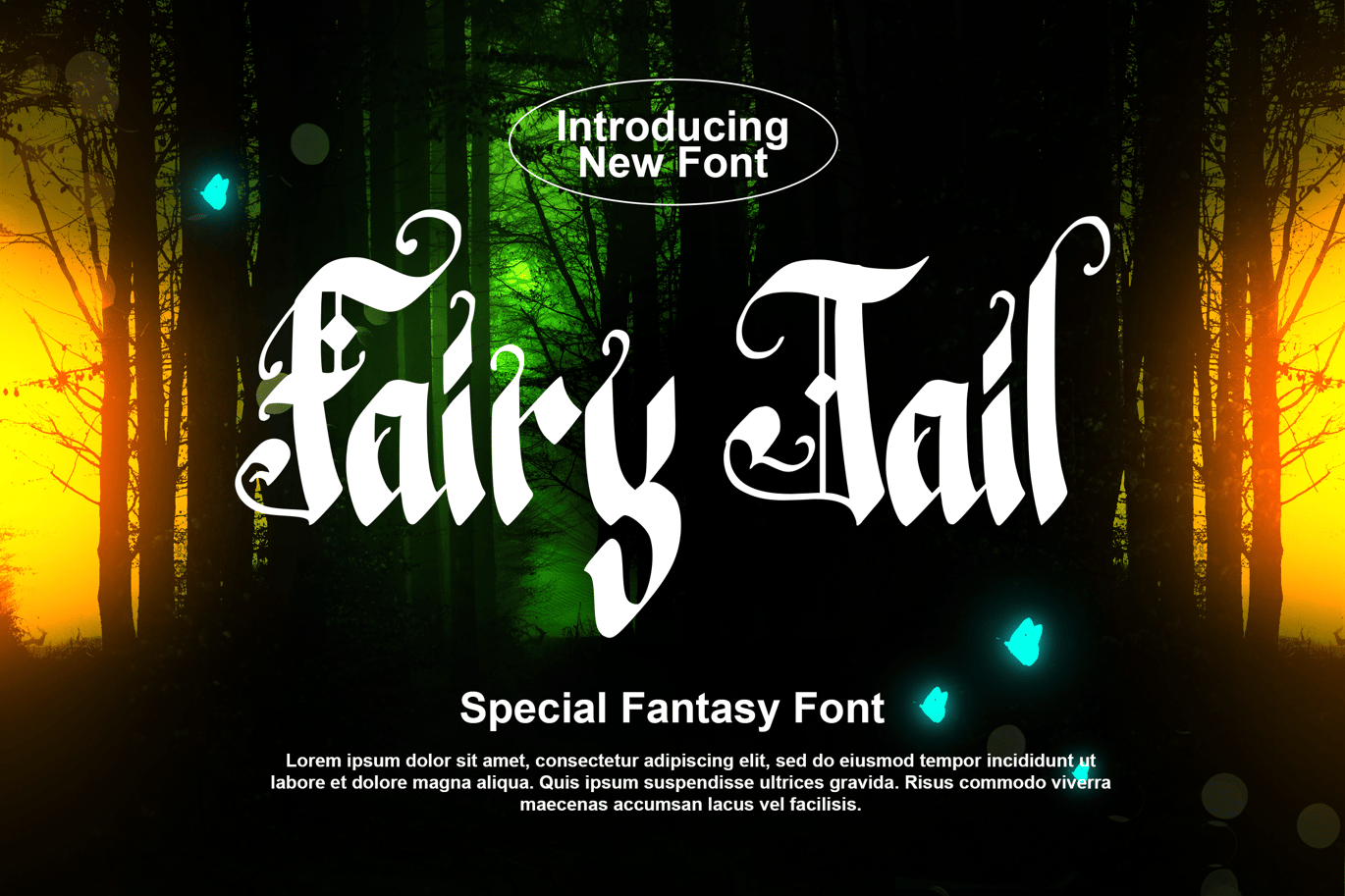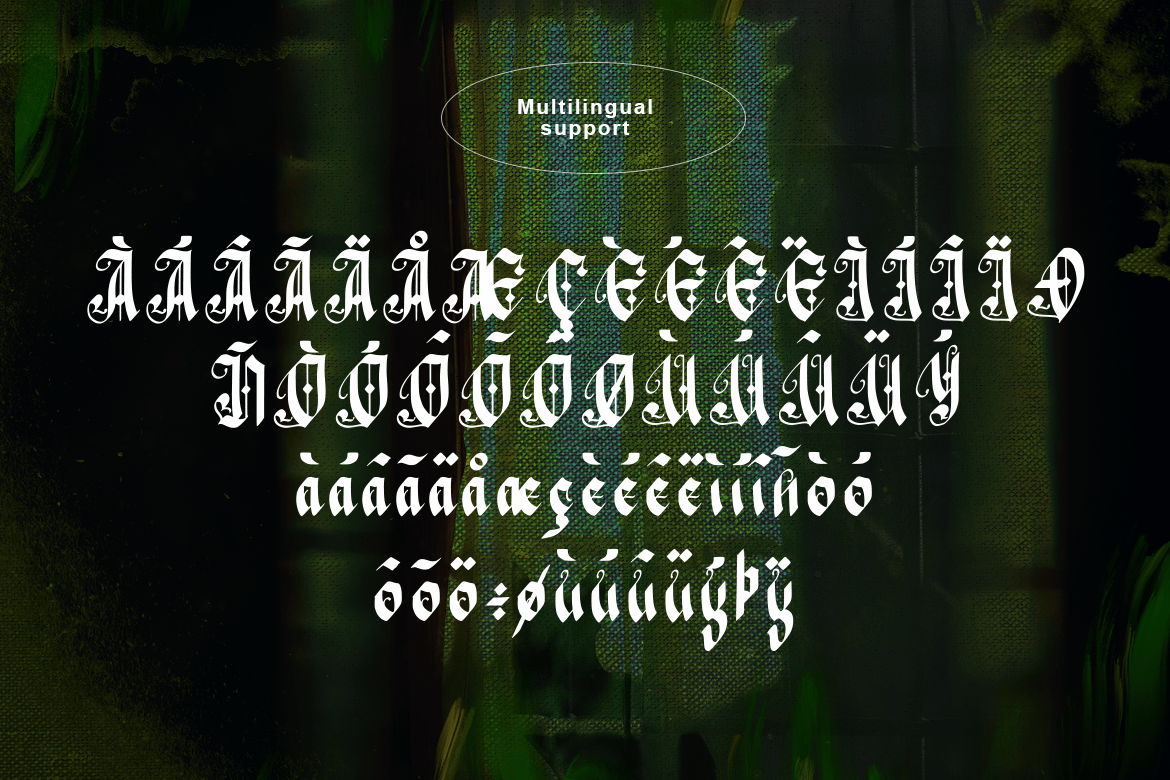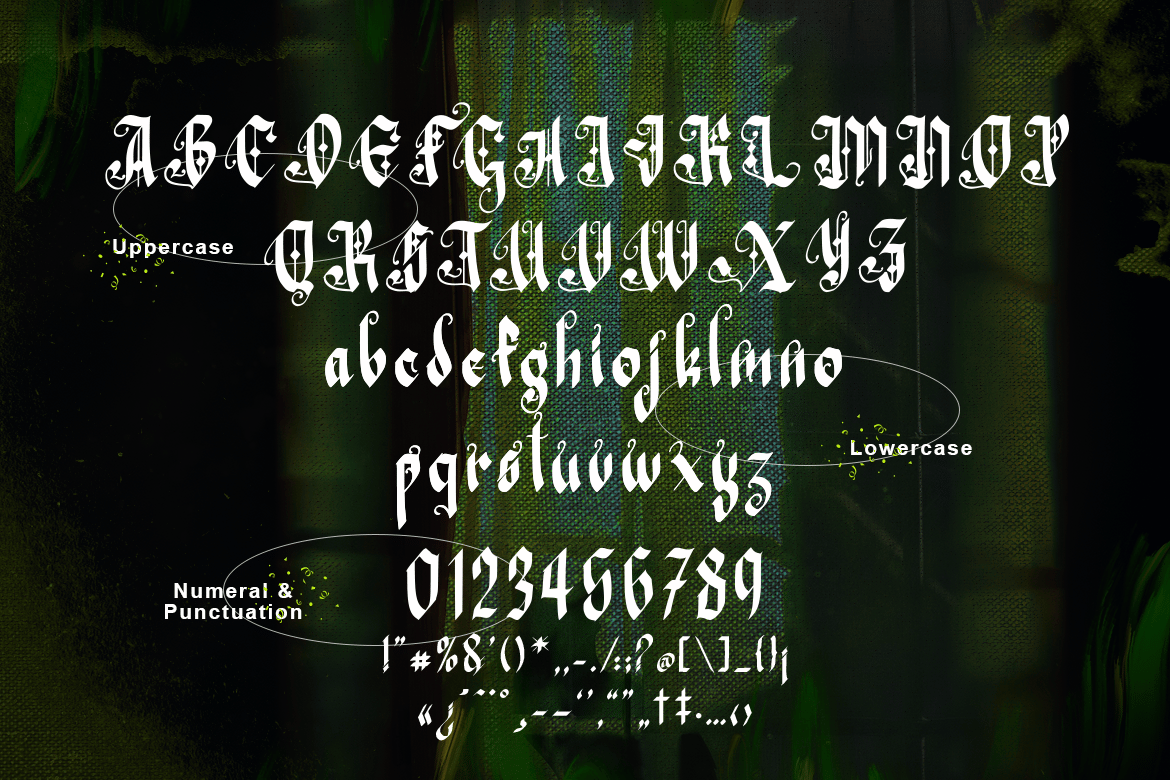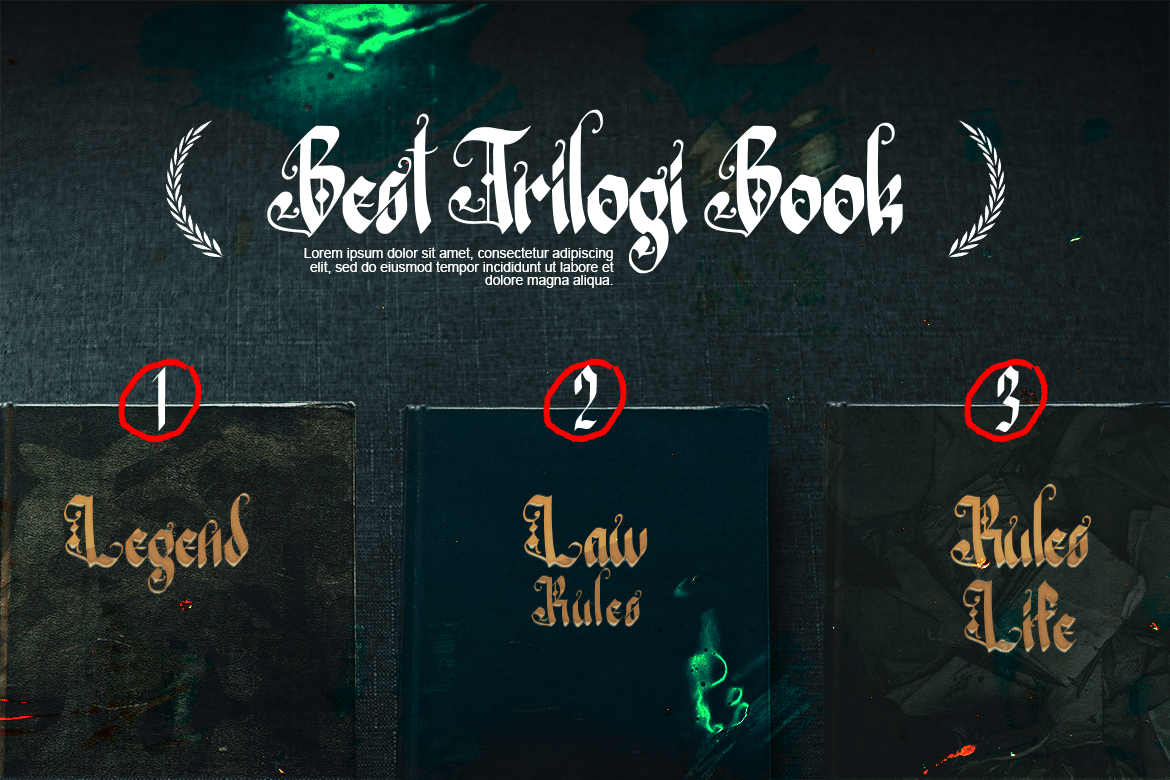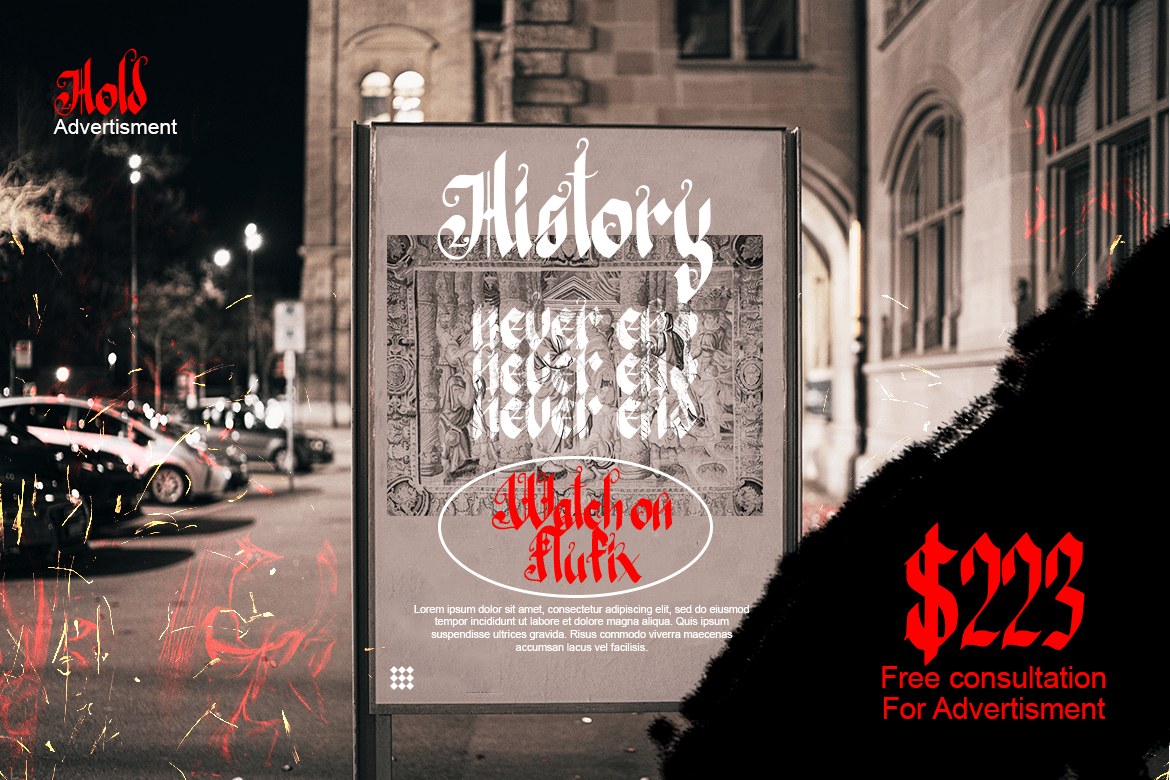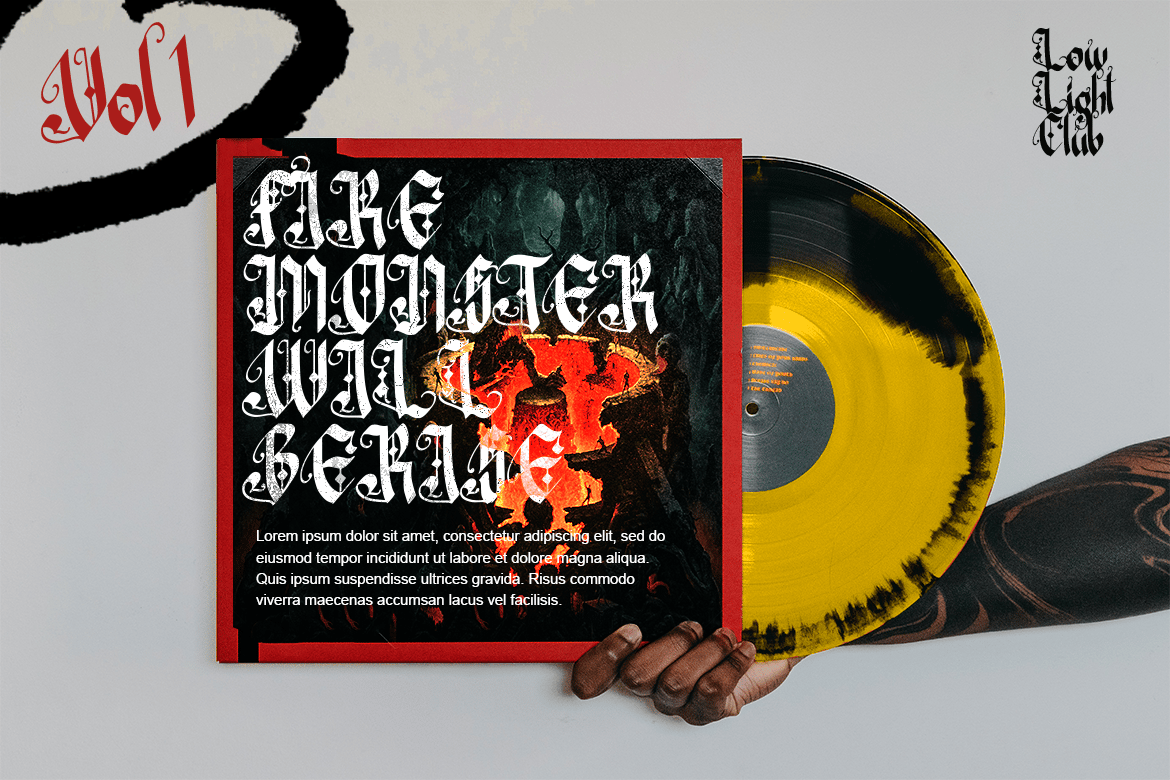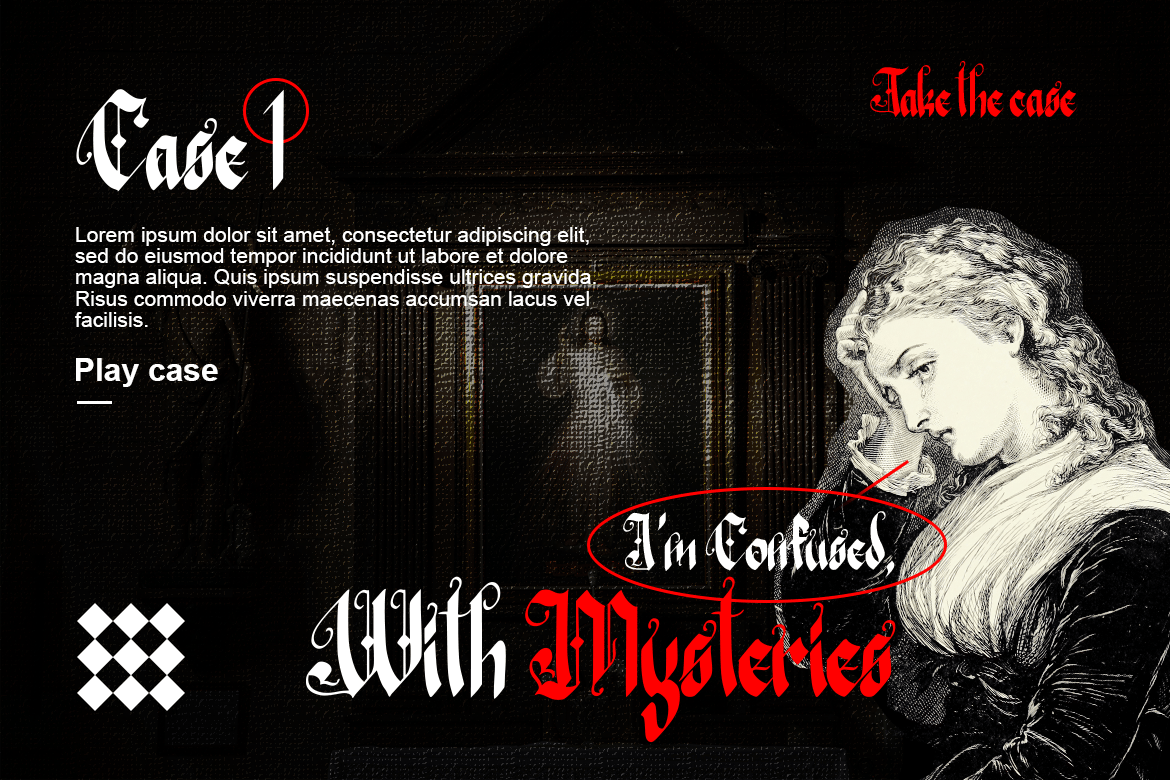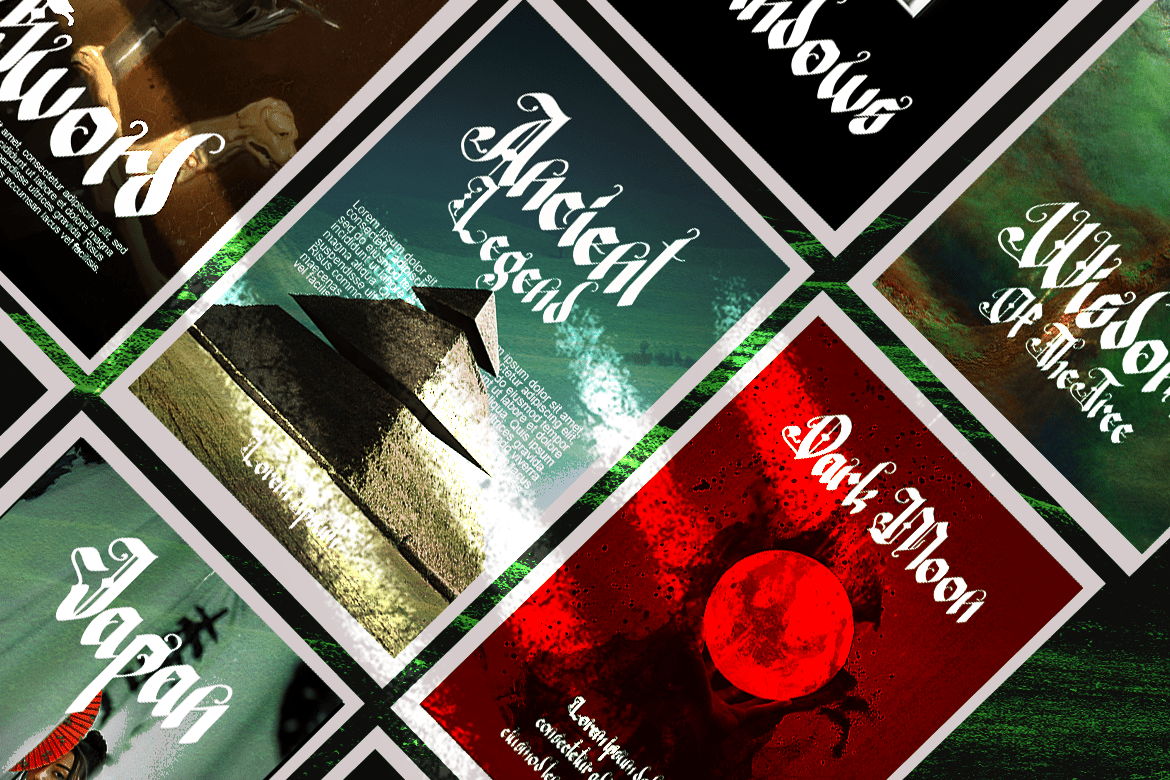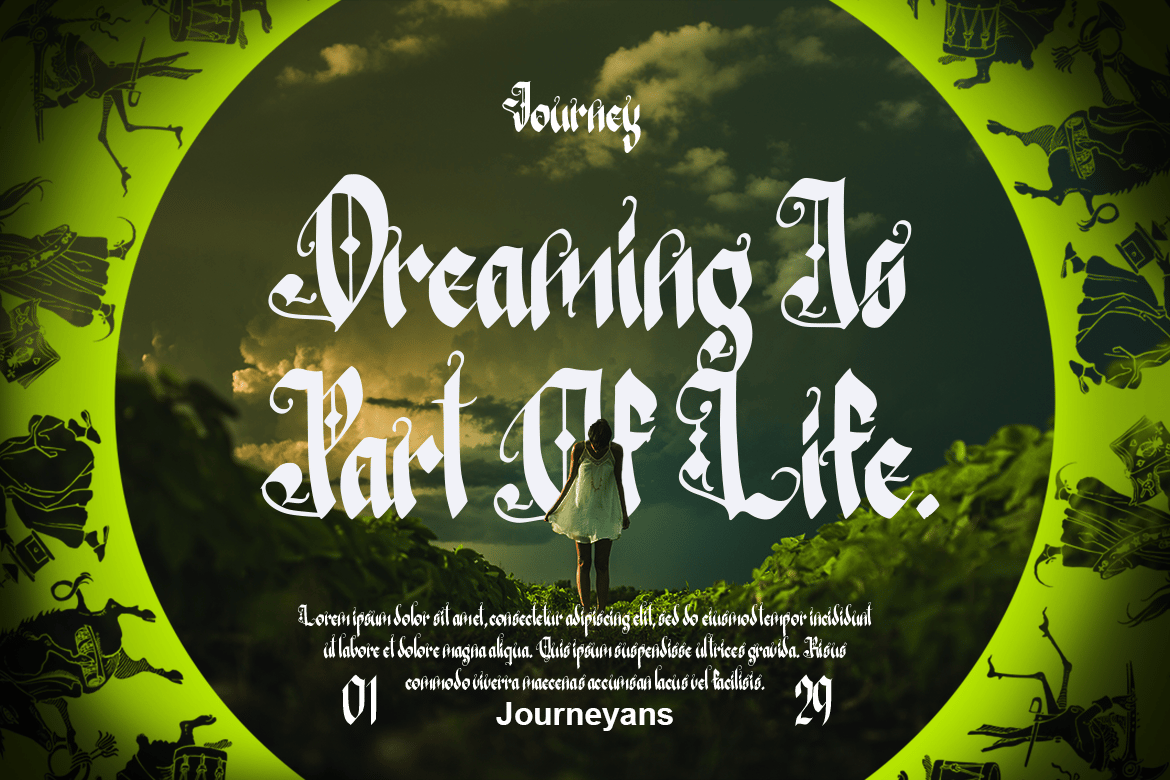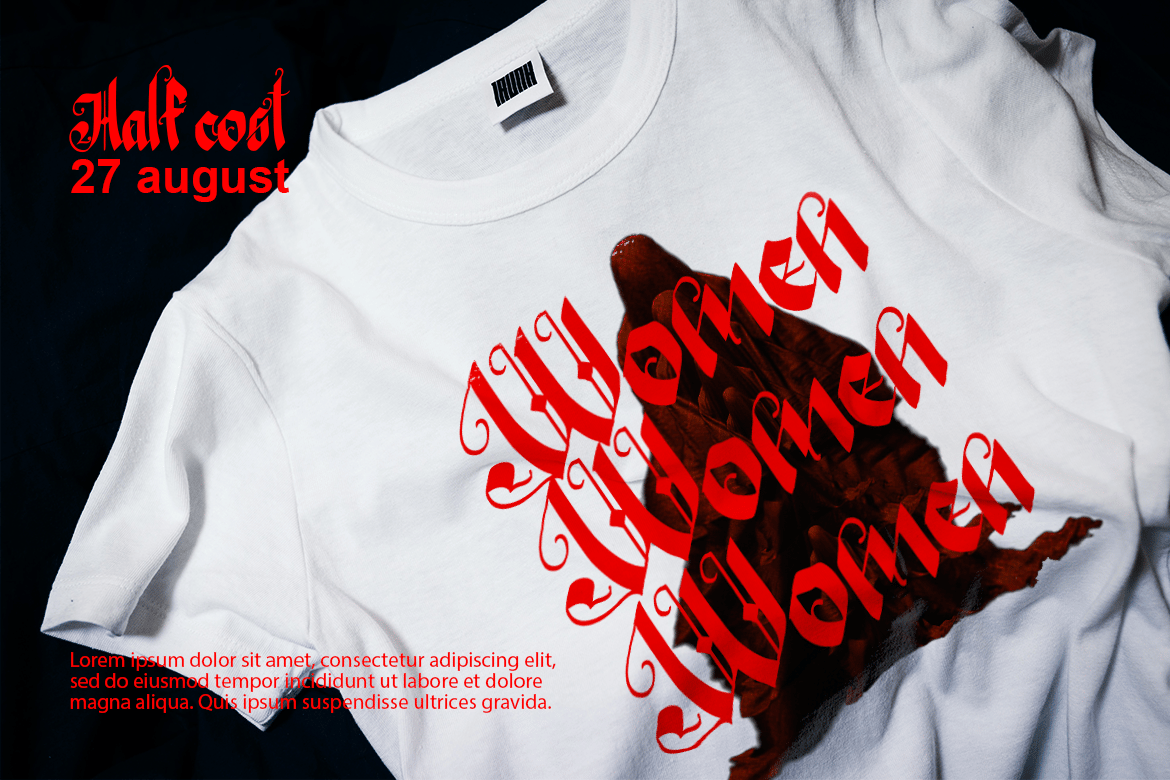
Fairy Tail – Special Fantasy Font
Fairy Tail is a special fantasy display font that will immediately take you into a fairytale land. Add this cartoon-like font to a wide range of creations related to children adventure, games or parties.